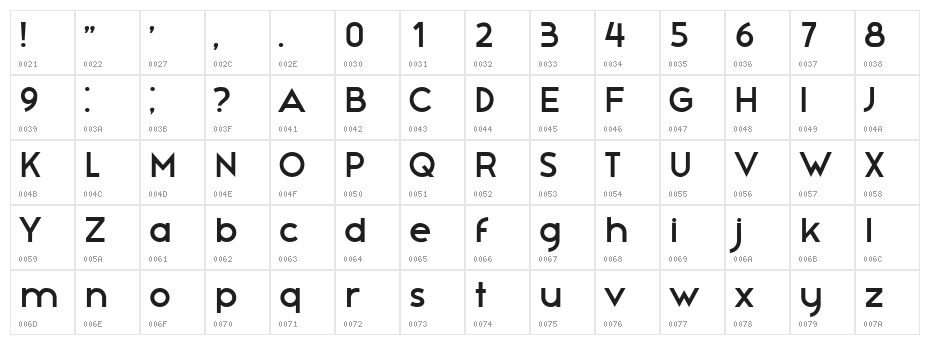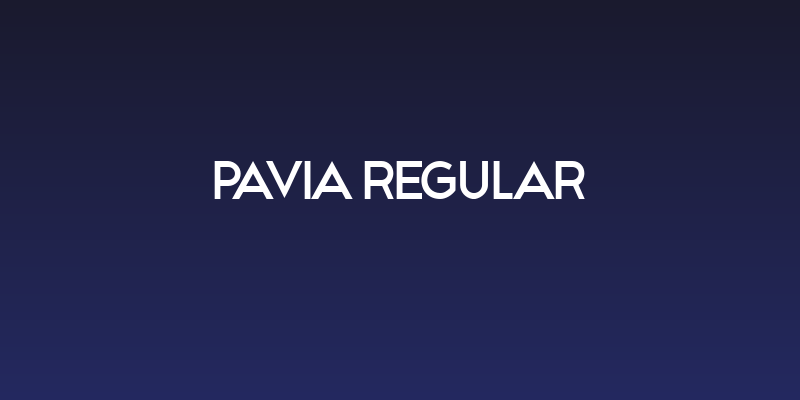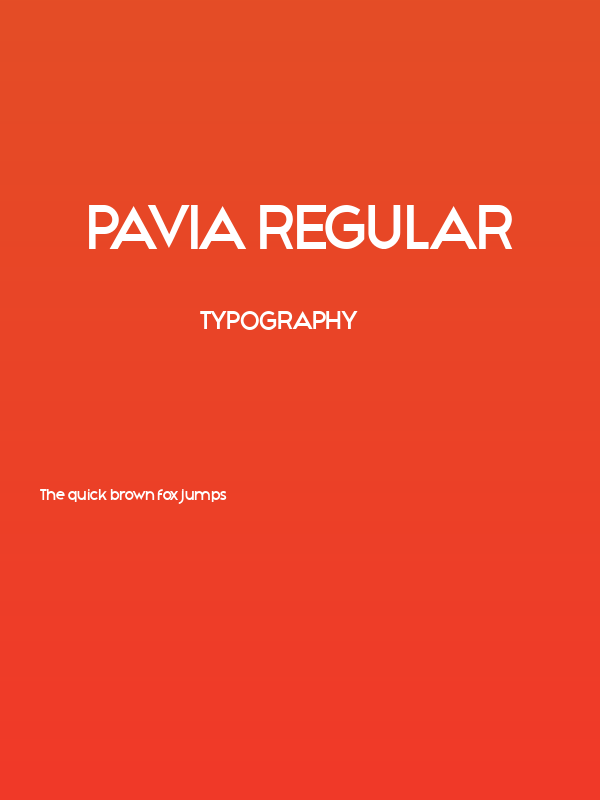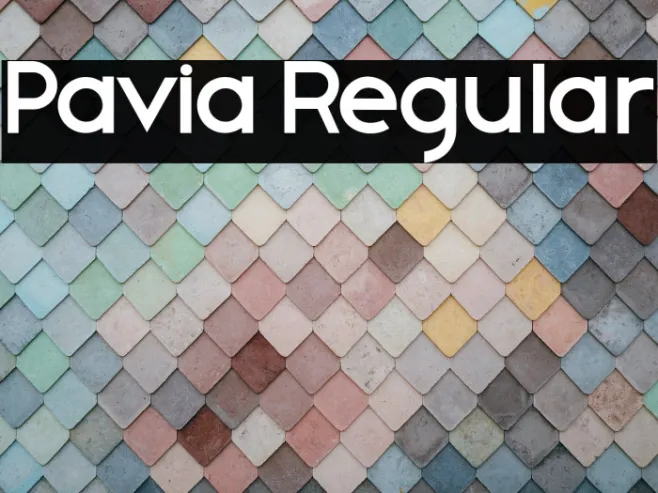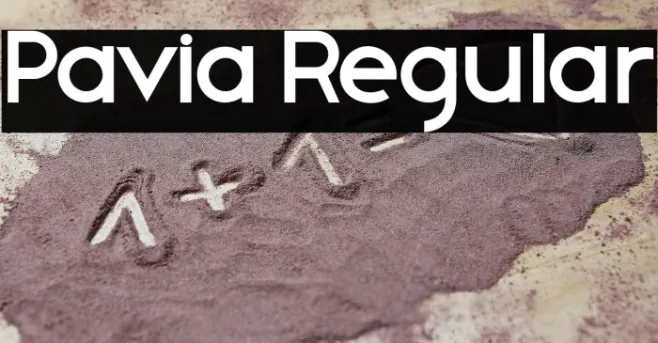
Pavia Regular Font
Pavia Regular Description
This font features a clean and modern sans-serif design with smooth, rounded edges and a uniform stroke width. The characters are well-proportioned, offering a harmonious balance between height and width. Its simplicity and clarity make it highly legible, suitable for both digital and print media. The numerals are distinct and easy to read, while the special characters maintain the same sleek style. This font exudes a contemporary feel, making it versatile for various design needs.